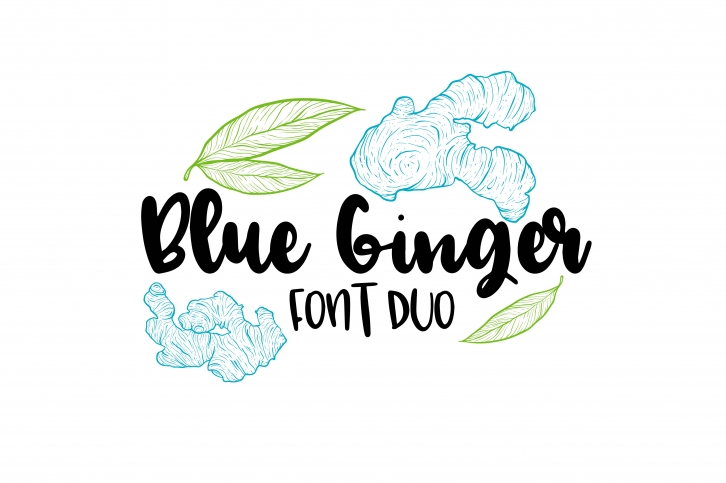
Blue Ginger Duo is a beautiful font that was designed by On The Spot Studio. It's a great choice for designers and creatives who need such a font. It was released on August 8, 2017 and the file size is 11.94 MB. Blue Ginger Duo may give a more youthful, expressive and casual look to your project. It is a very beautiful, refined, elegant, and high-quality font.